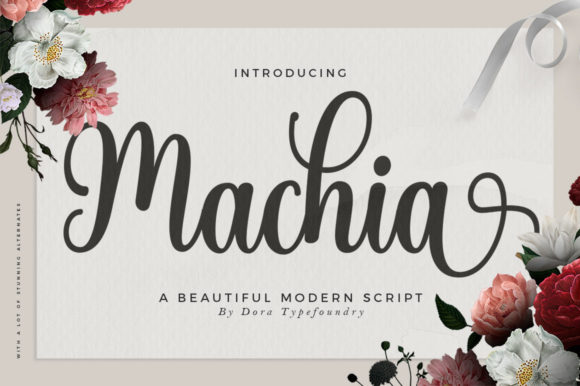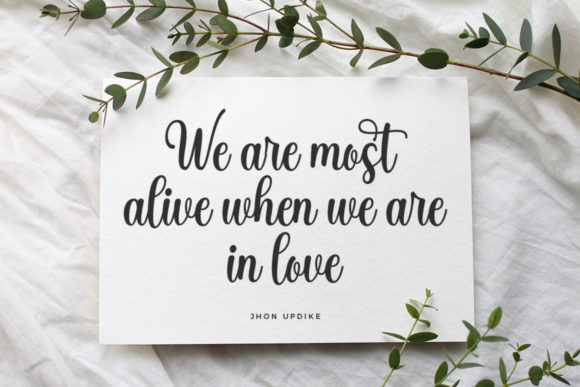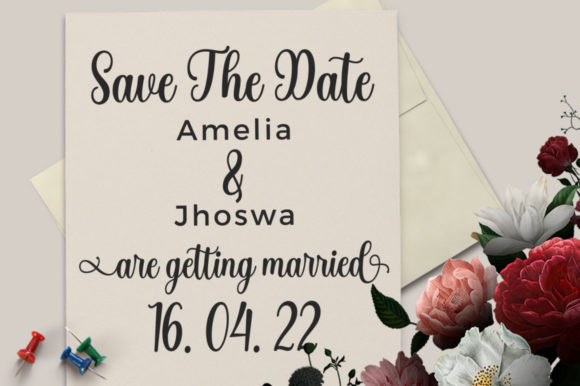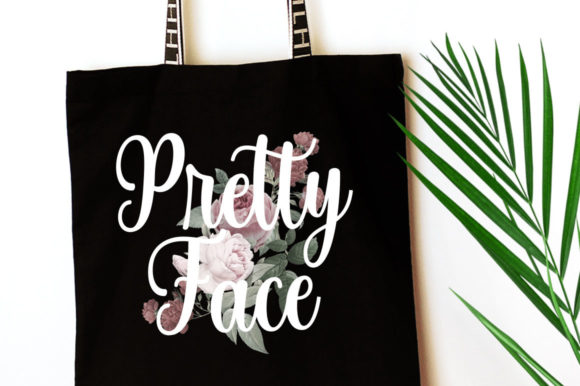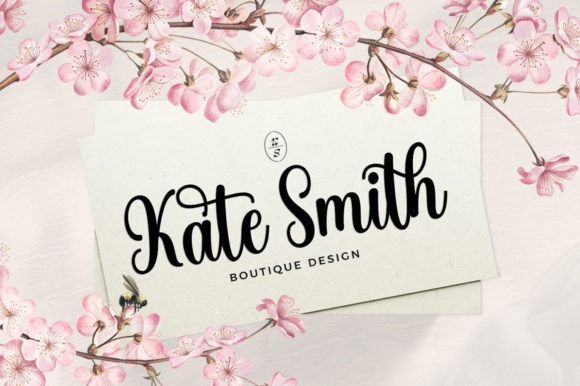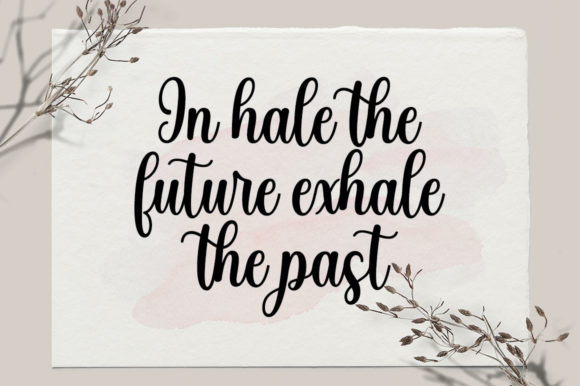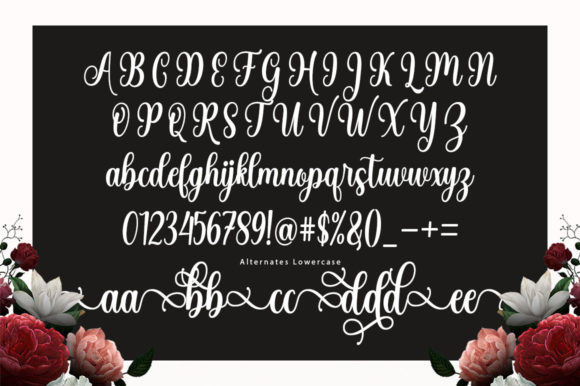
Machia Script Font
Machia Script is a gorgeous script calligraphy that is full of love, elegance, delicious plots, and playful strokes. Whatever the topic, this font will be a wonderful asset to your font library, as it has the potential to enhance any creation.
Machia Script is PUA encoded which means you can access all glyphs and swashes with ease!